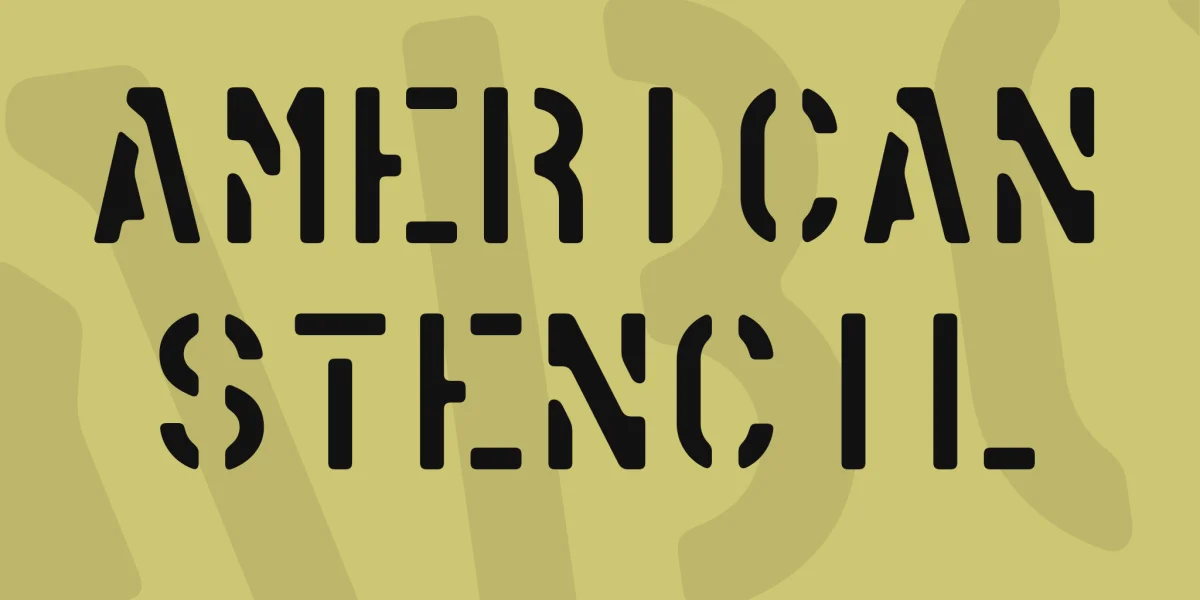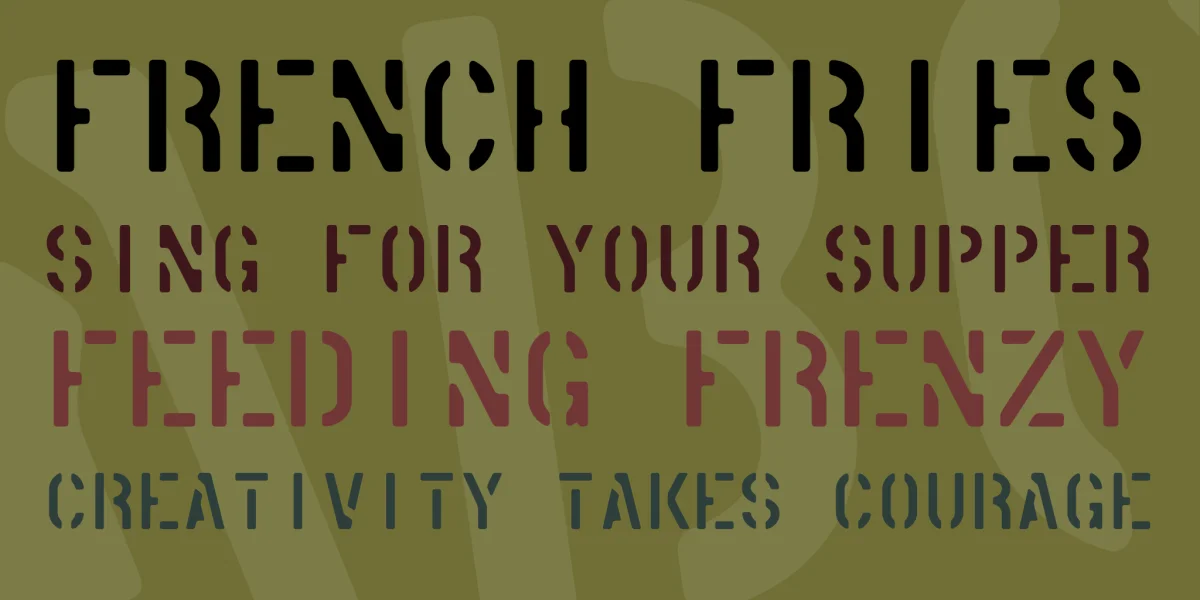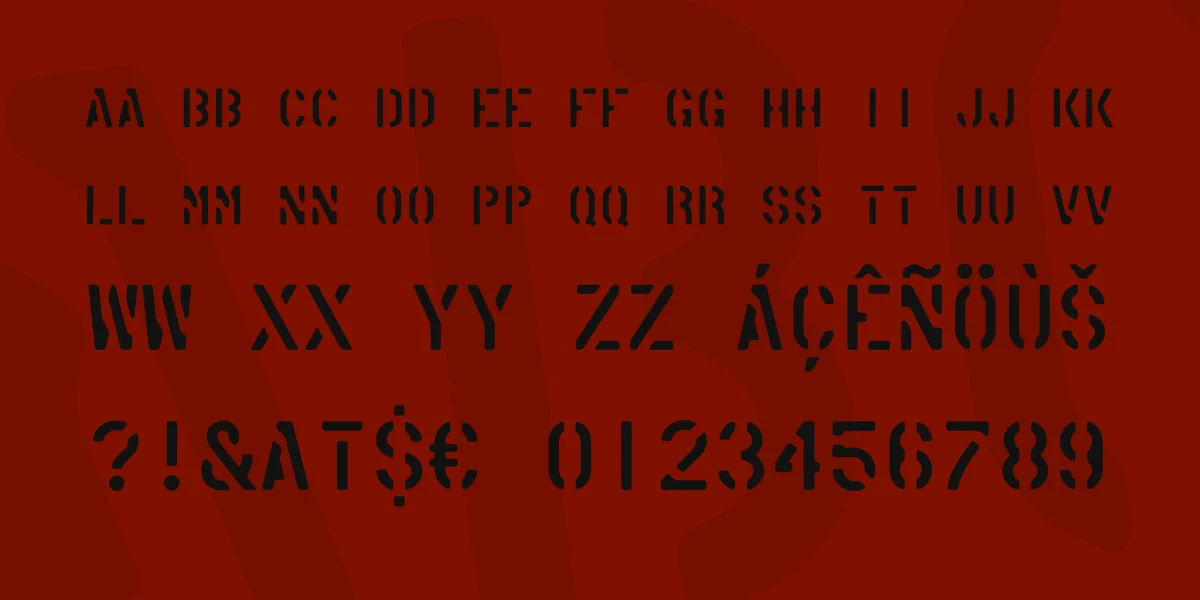
This font is derived from the typical painted letters by means of templates that are generally found on vehicles, packing boxes or structures. It is therefore a monospaced font, with rounded edges.